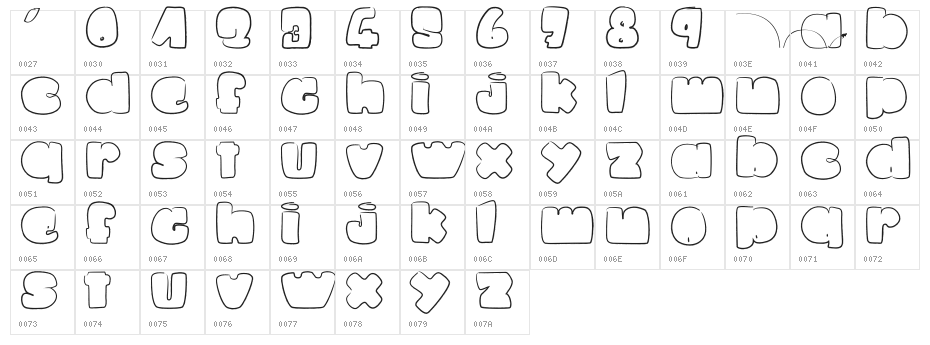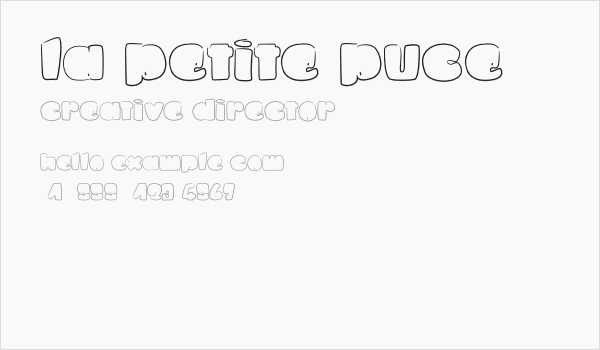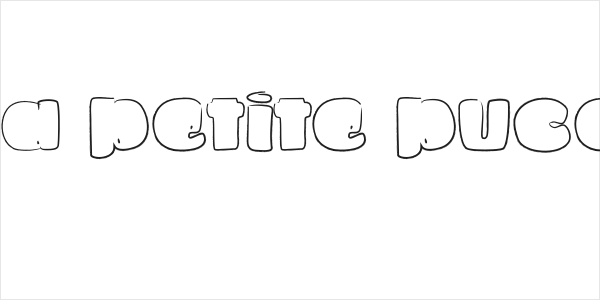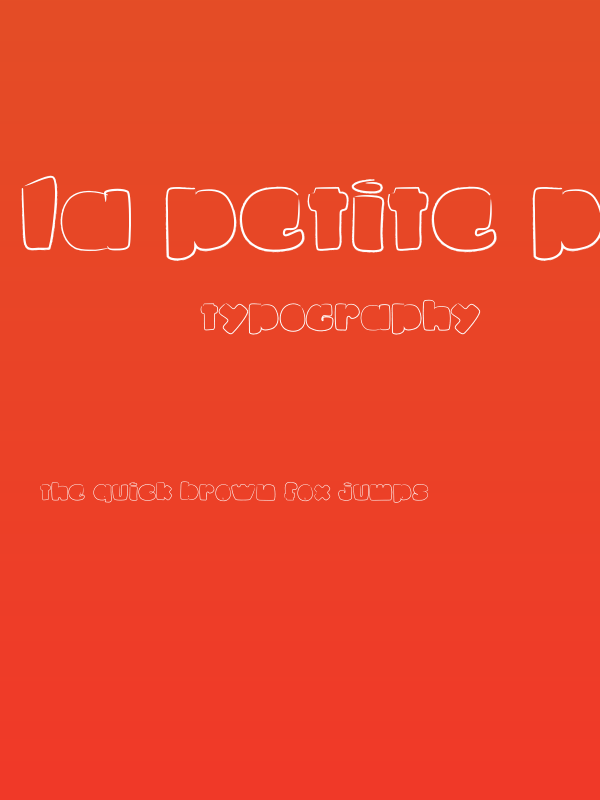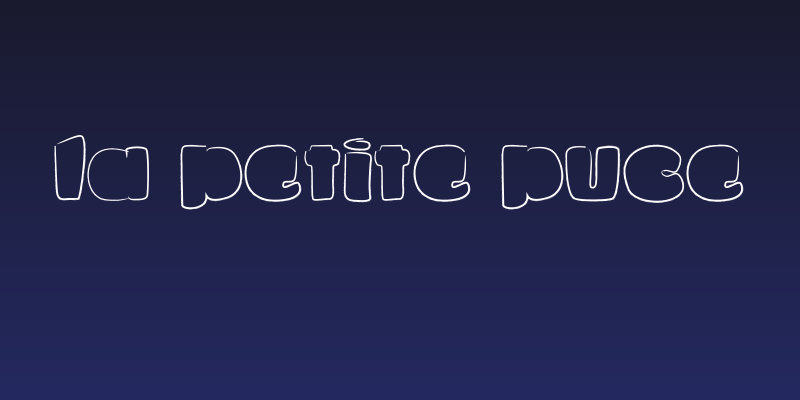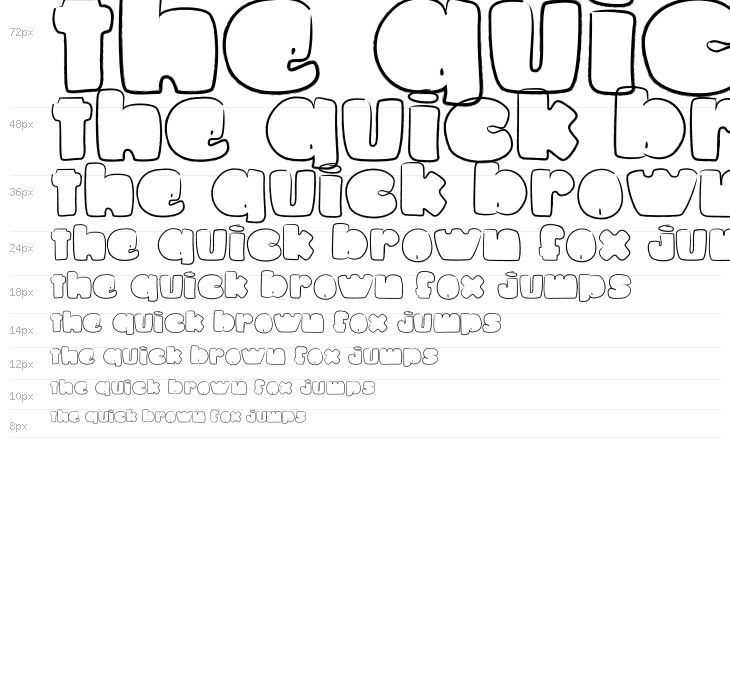
La petite puce Font
La petite puce Description
This playful and rounded font features a bubbly and whimsical design, characterized by its thick, bold strokes and soft, curved edges. Each character is enclosed within a rounded outline, giving it a distinctive, almost cartoon-like appearance. The font maintains a consistent weight throughout, with a uniform thickness that adds to its bold and eye-catching nature. The letters are slightly spaced apart, providing a balanced and readable look despite their unconventional shapes. This font is ideal for projects that require a fun and informal touch, such as children's books, playful branding, or creative posters.
| Overall Style | Playful, Whimsical, Fun |
| Proposed Projects | Ideal for children's books, playful branding, creative posters, and informal designs. |